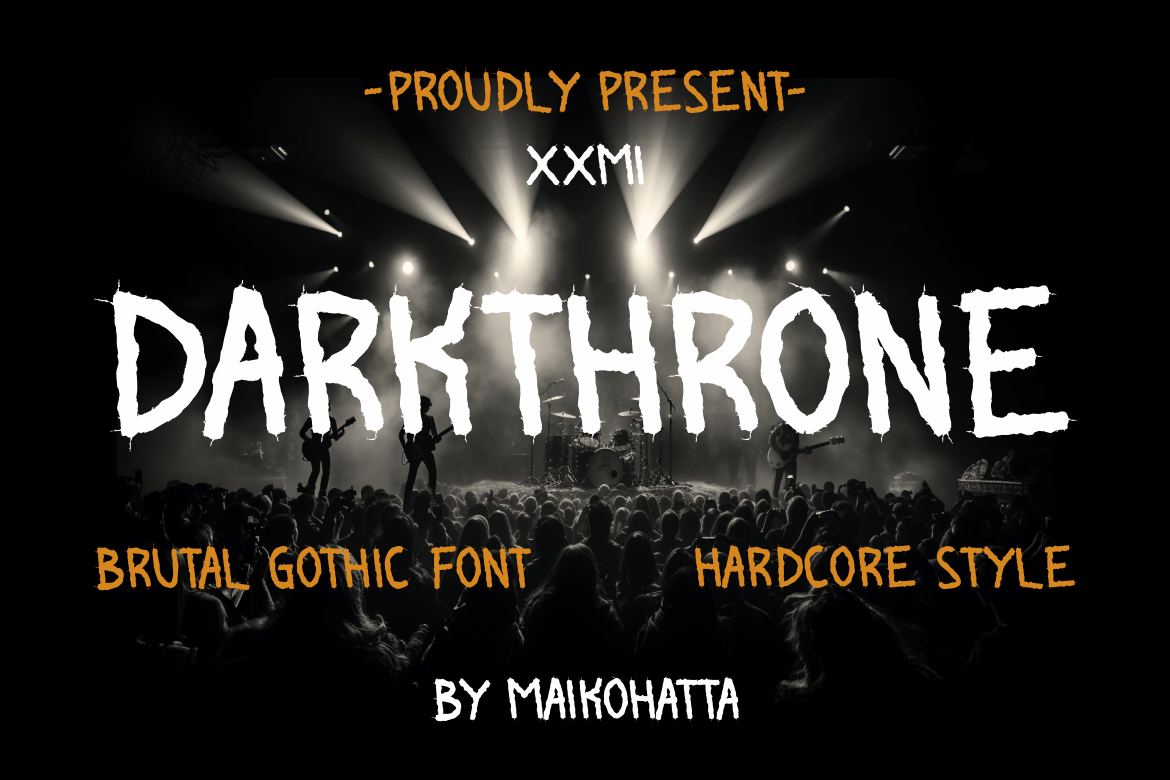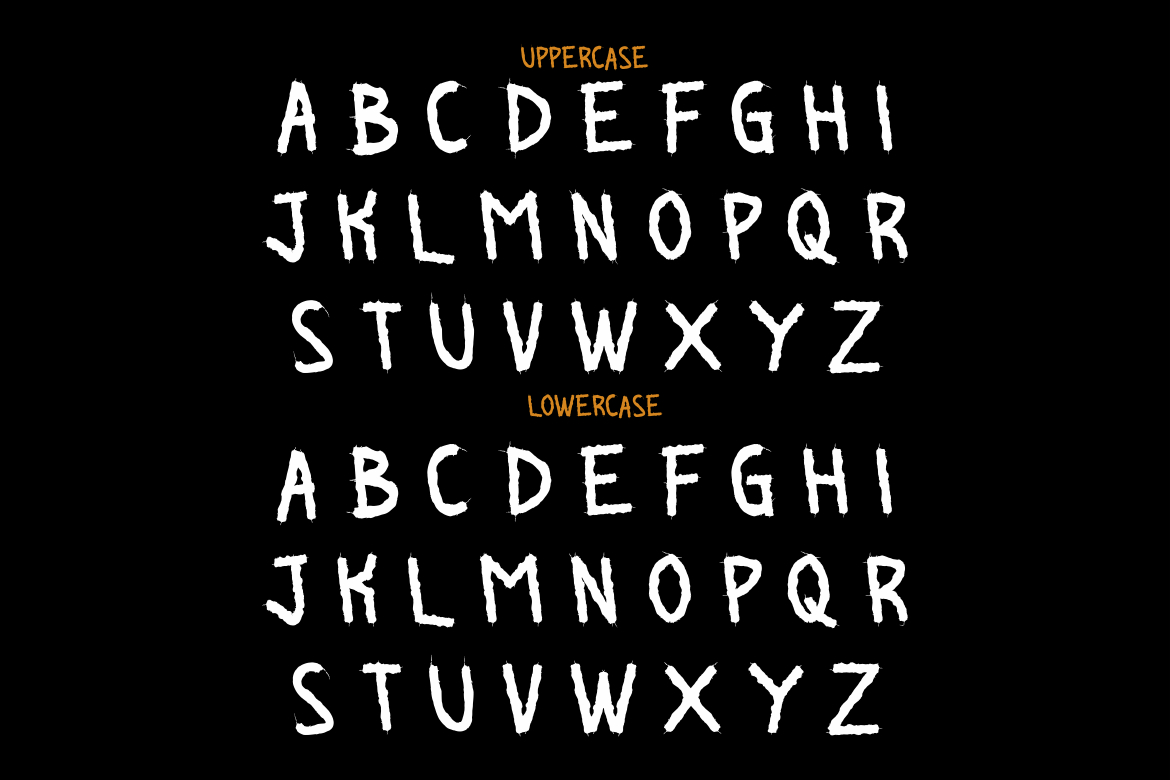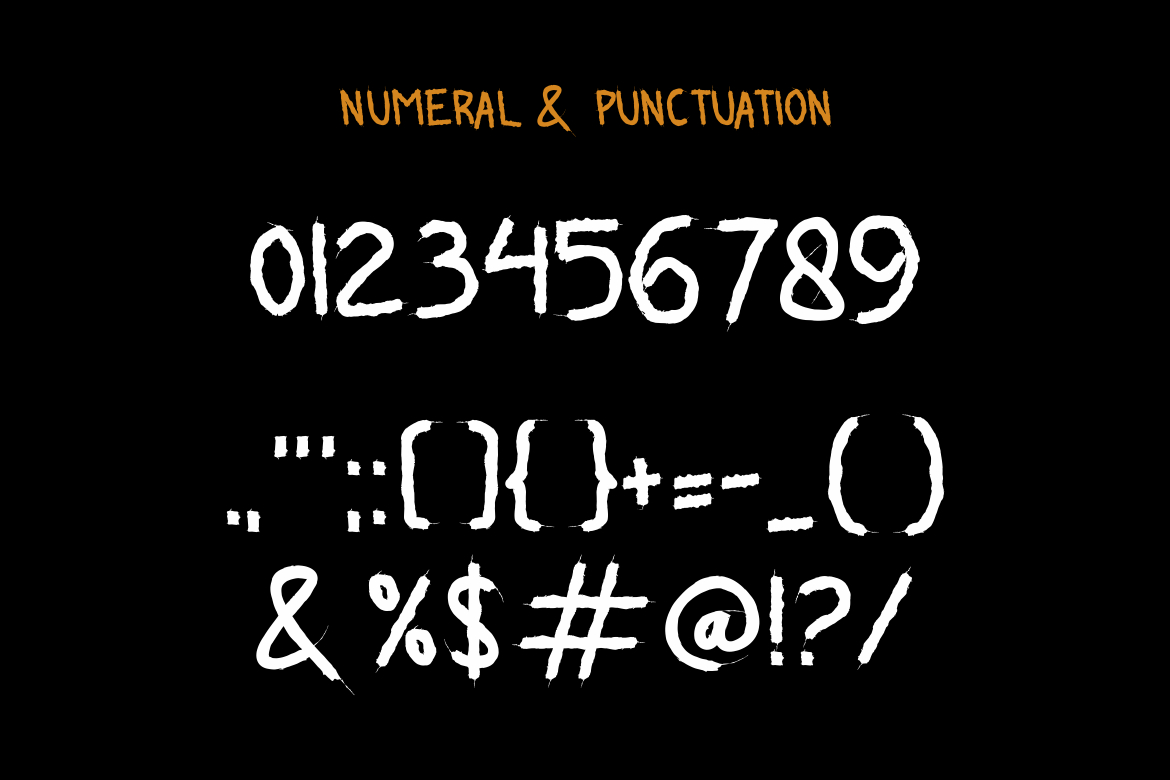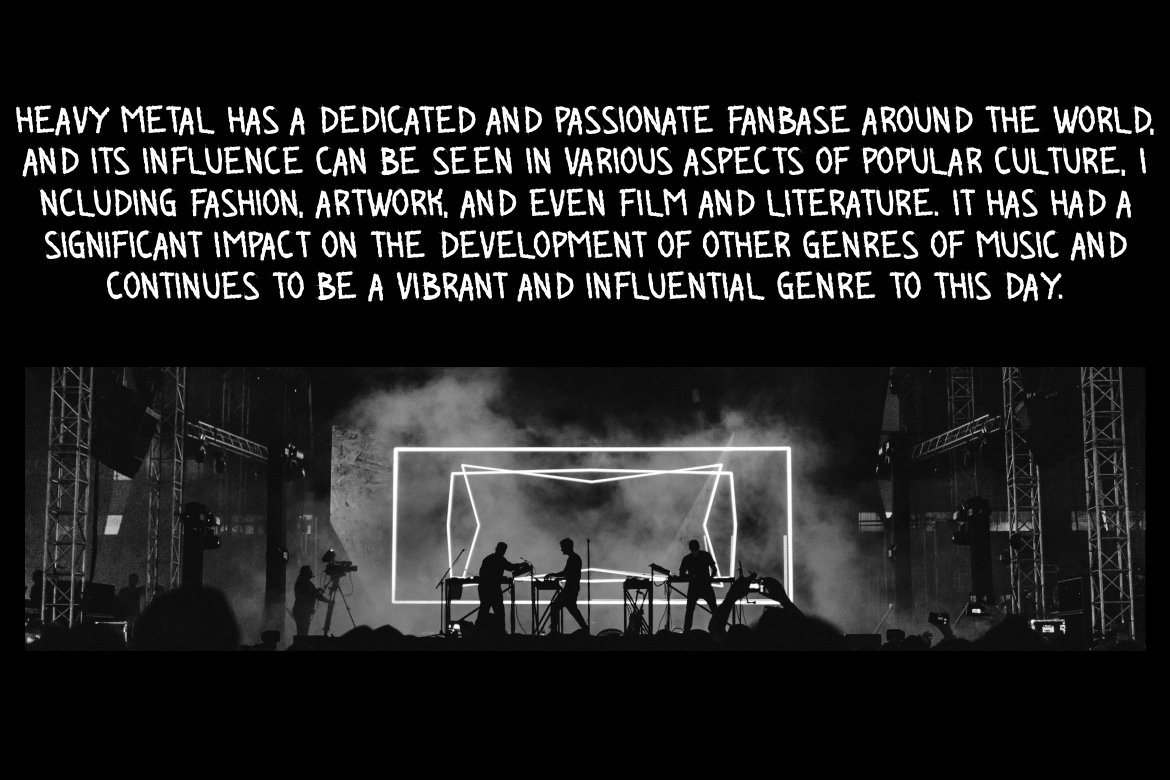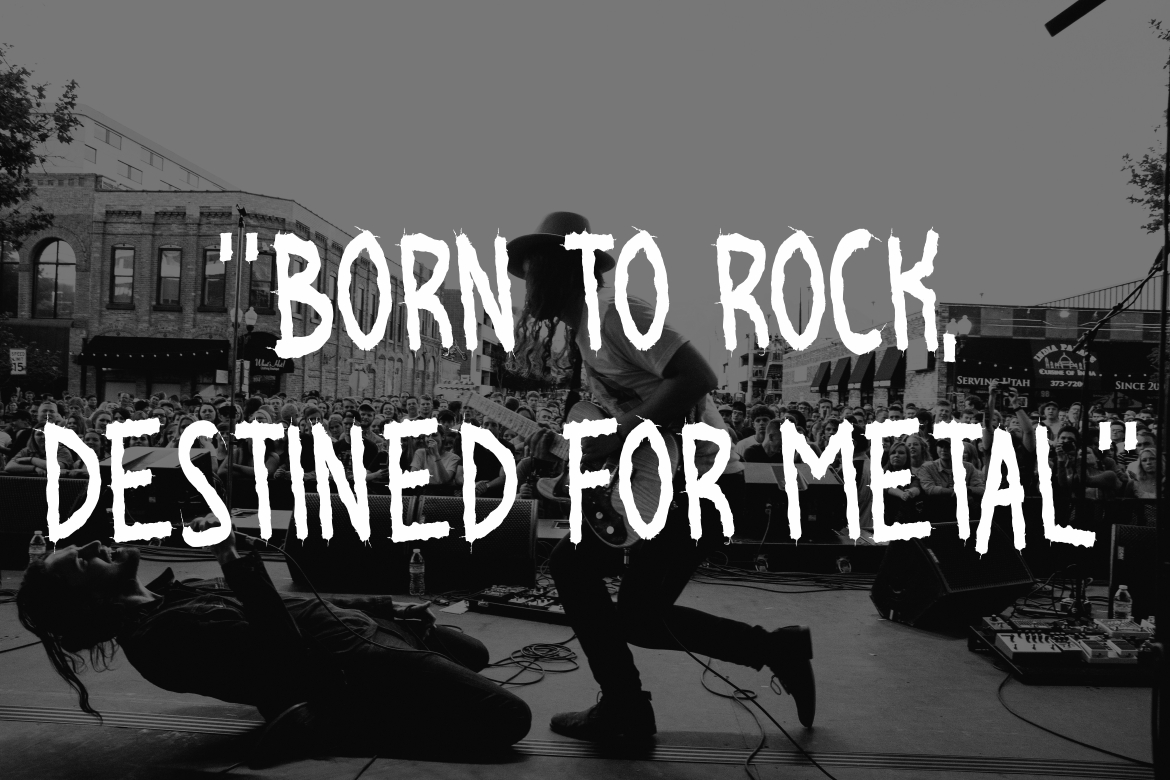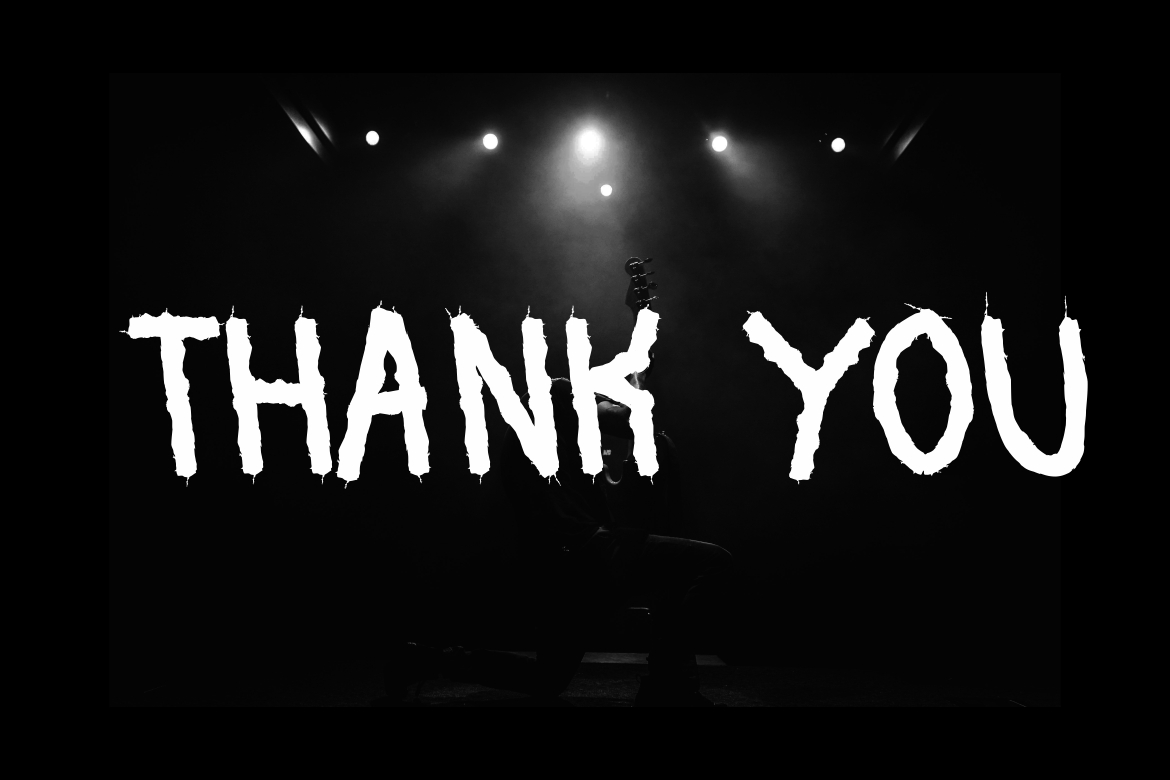
Darkthrone Font
About Darkthrone Font
Darkthrone is a bold and thick lettered blackletter font. Add it confidently to your projects, and you will love the results.